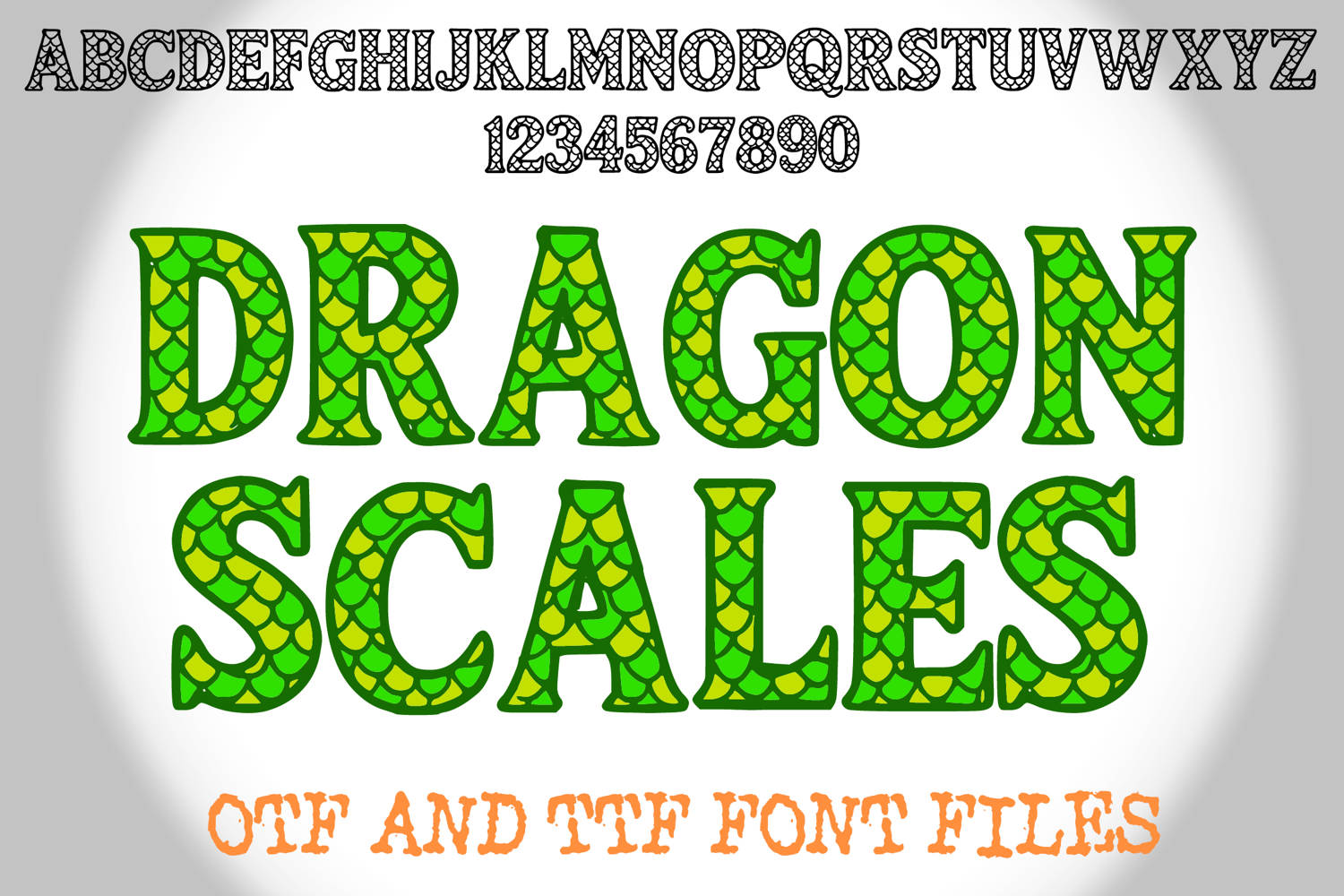
Dragon Scales Lettering ABC Text Snake Font Alphabet OTF Type Illustration
An scaly style font where you can create your own words and colour them to your vision!